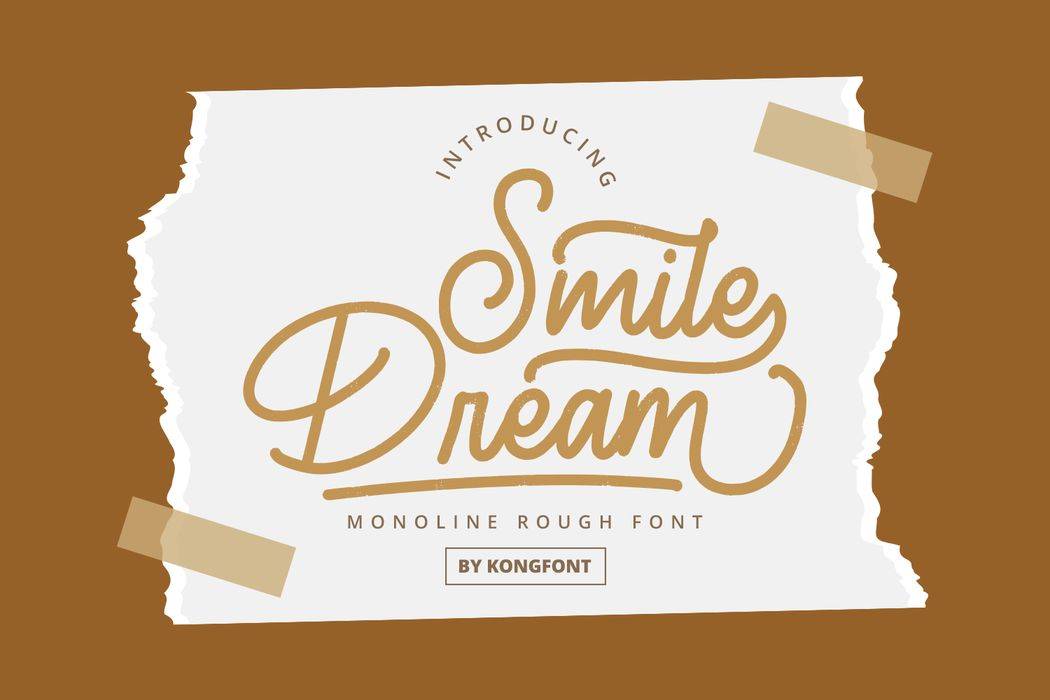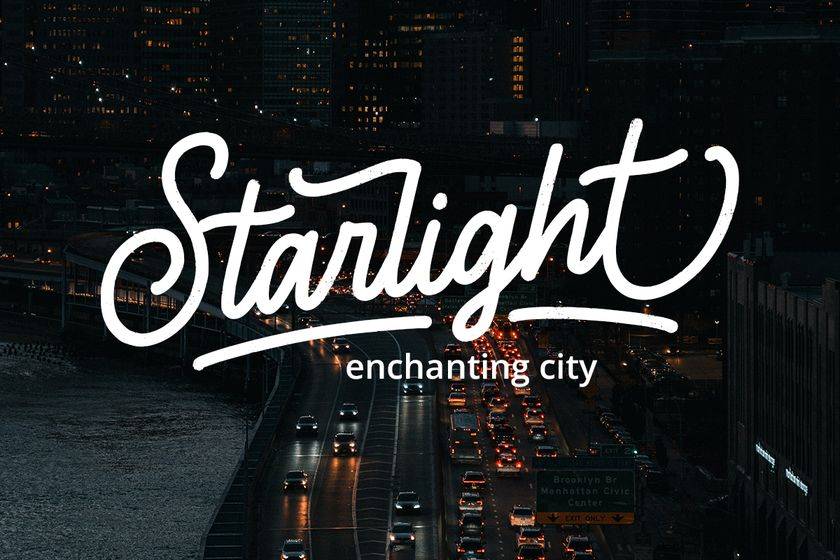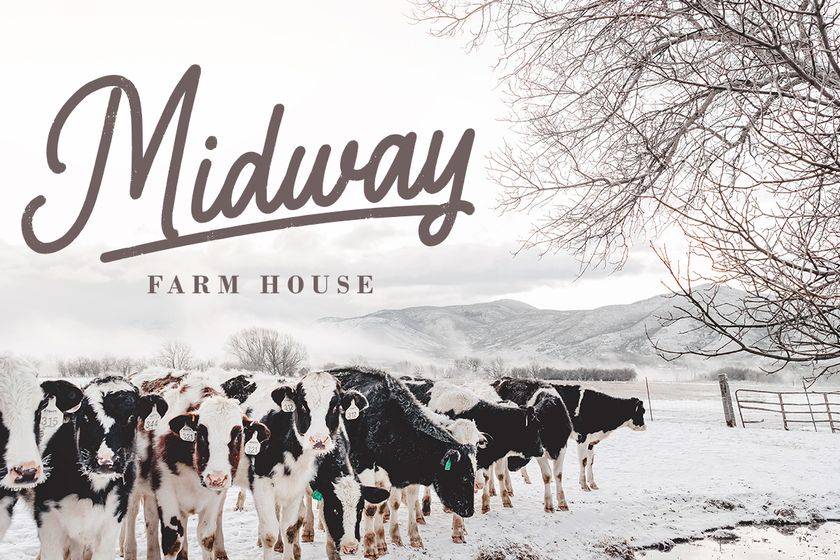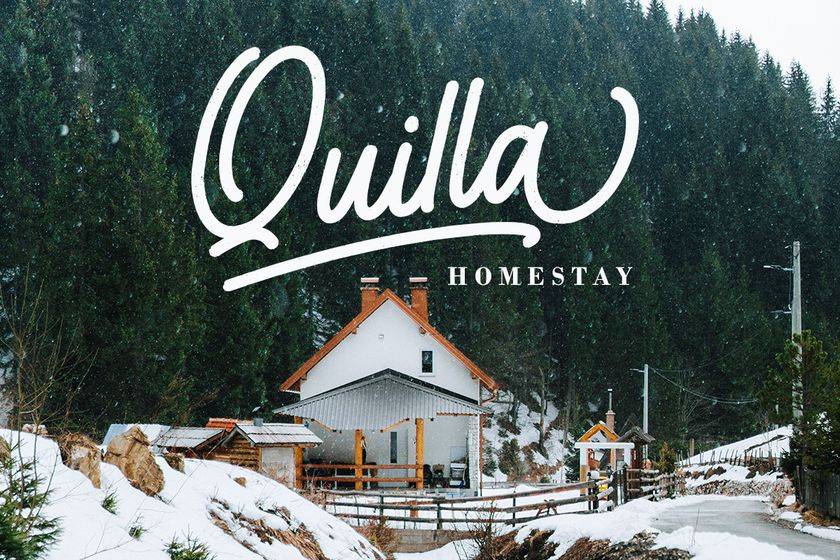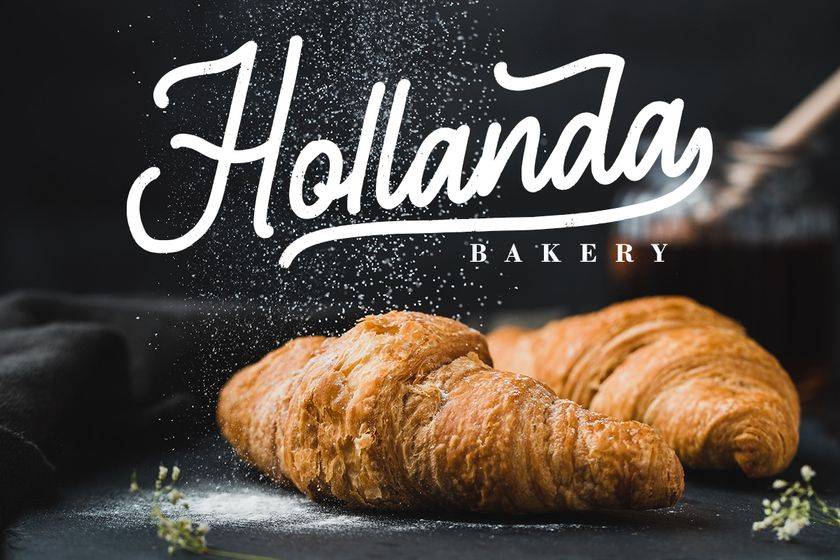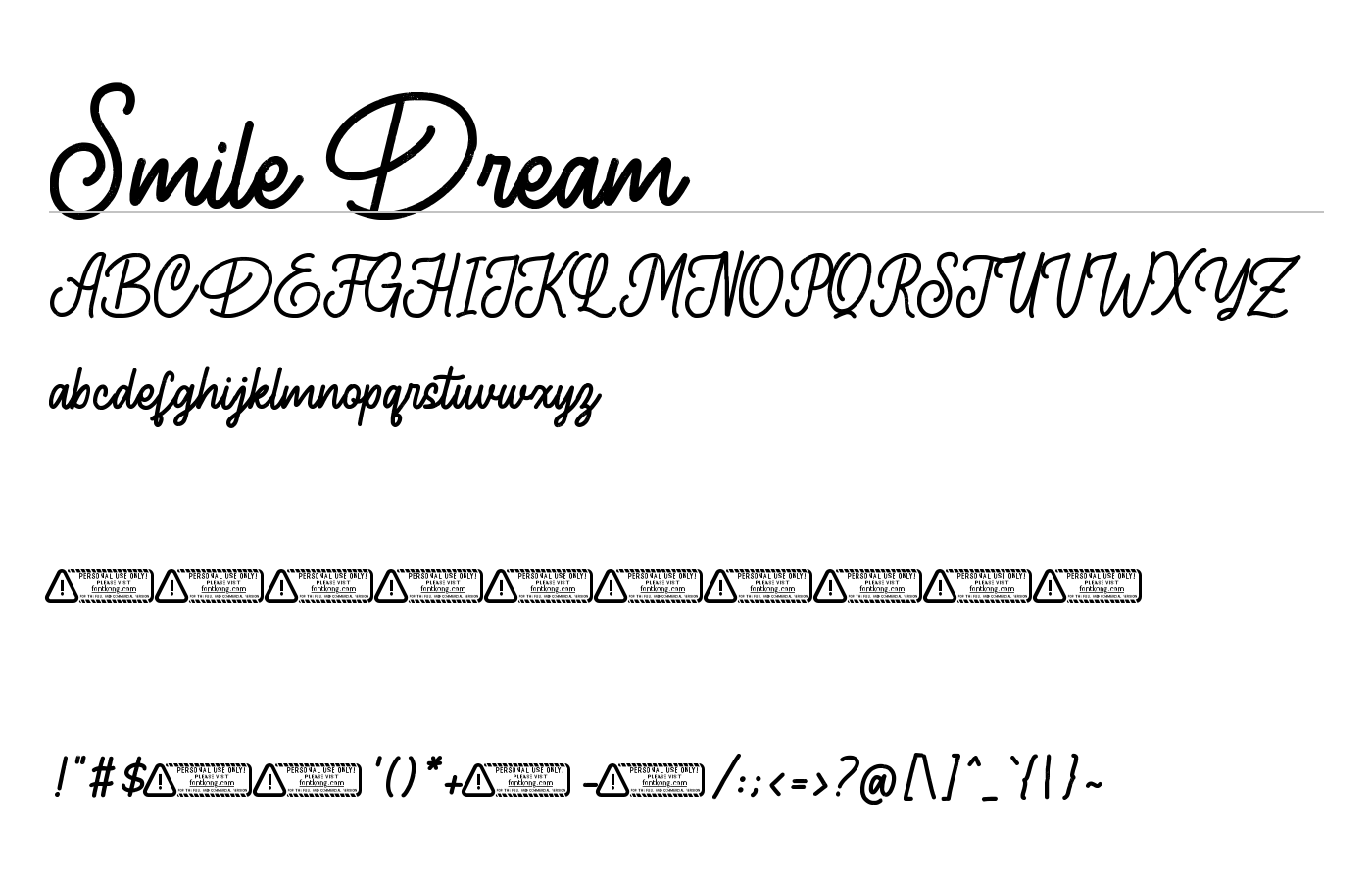
Smile Dream is a charming script font that combines elegance with a playful handwritten feel. Its smooth, flowing strokes and slightly varied line thickness give it a warm, inviting personality, making it ideal for creative projects, invitations, and branding that want to convey friendliness and style. This font works beautifully in logos and headlines where a personal, approachable touch is desired.
Smile Dream Font
About Smile Dream Font